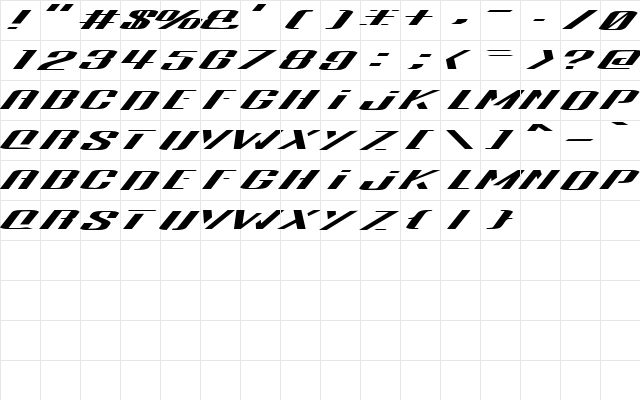
MK Cuer Regular Font Preview
MK Cuer Regular
MK Cuer Regular Font Details
Design Context for MK Cu�er Typeface
MK Cu�er is a composed and adaptable typeface that performs quietly and consistently across a wide range of design contexts.